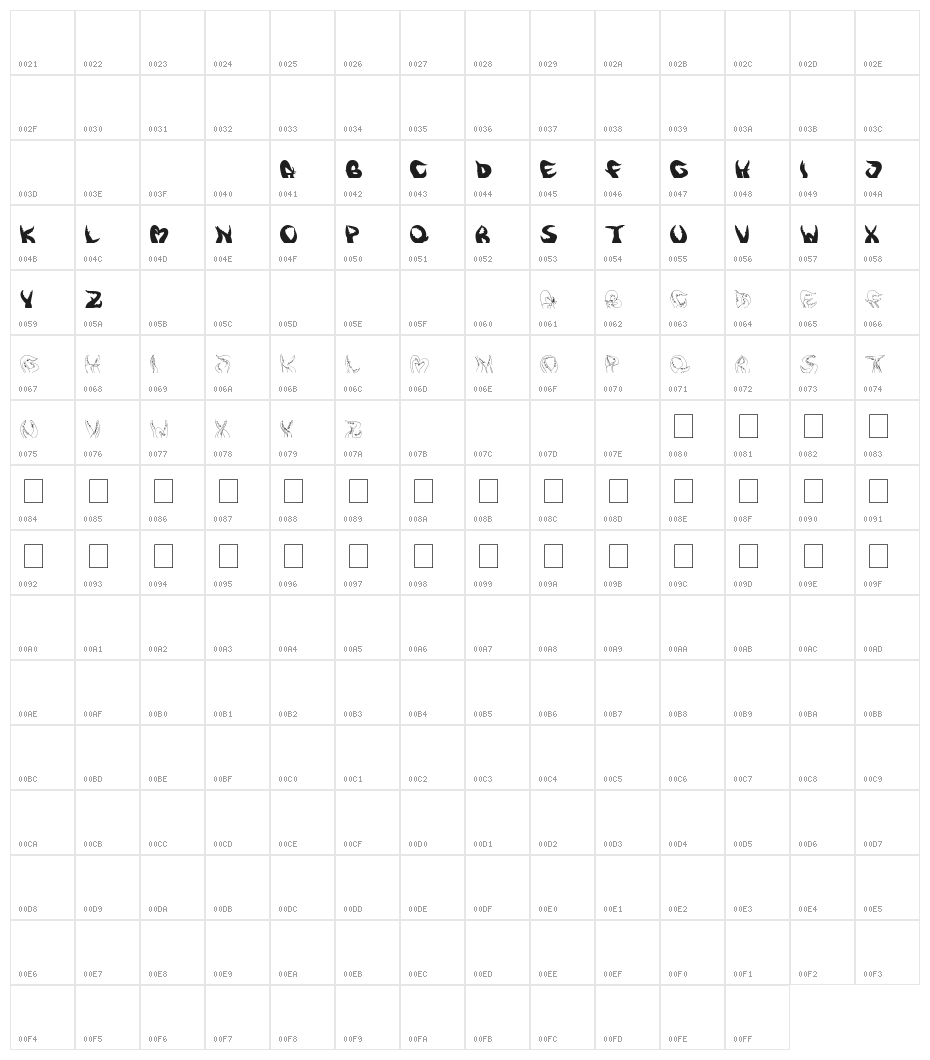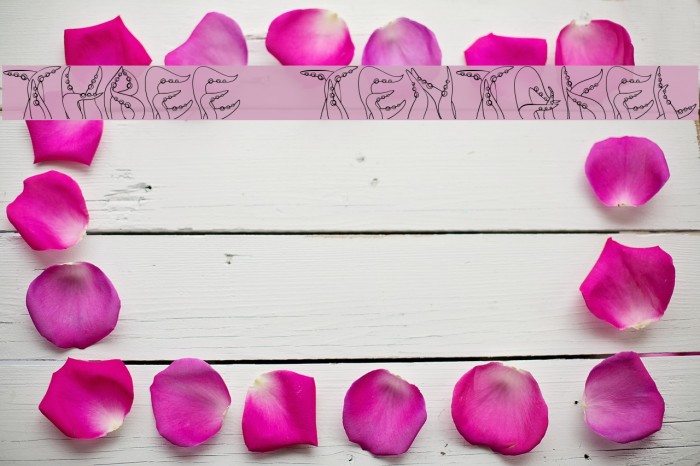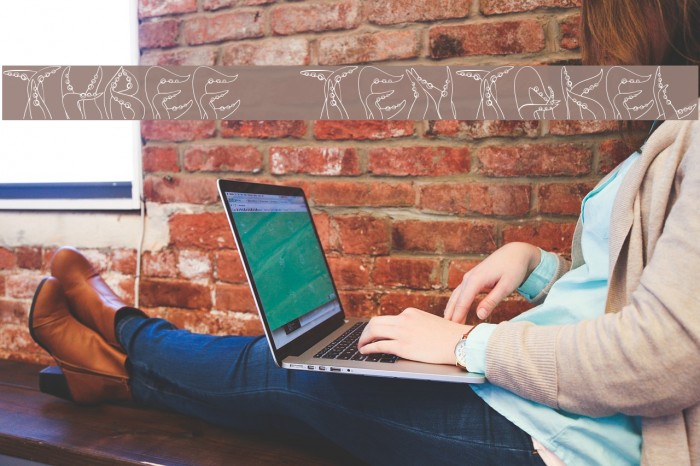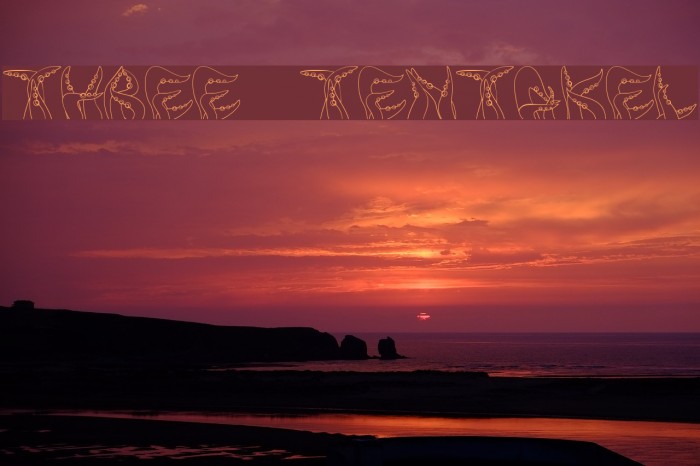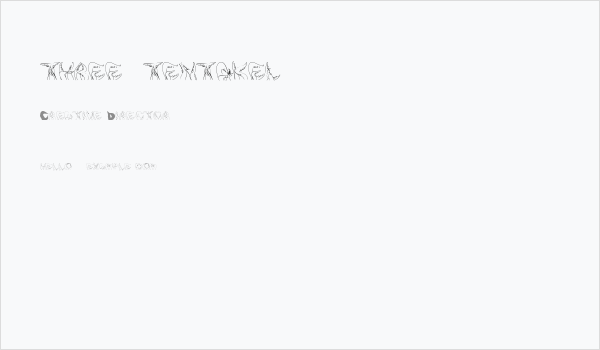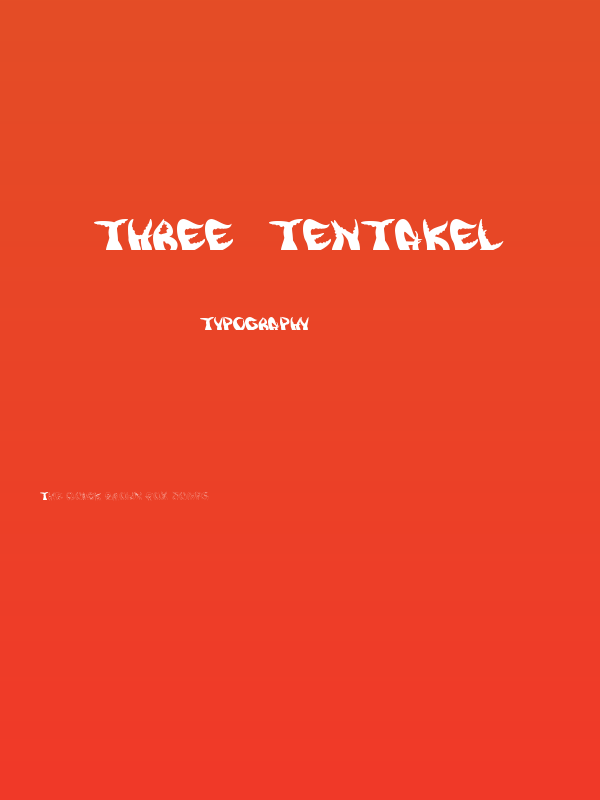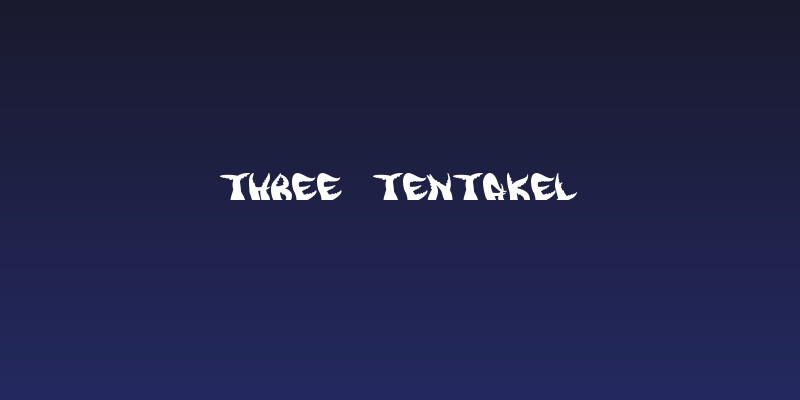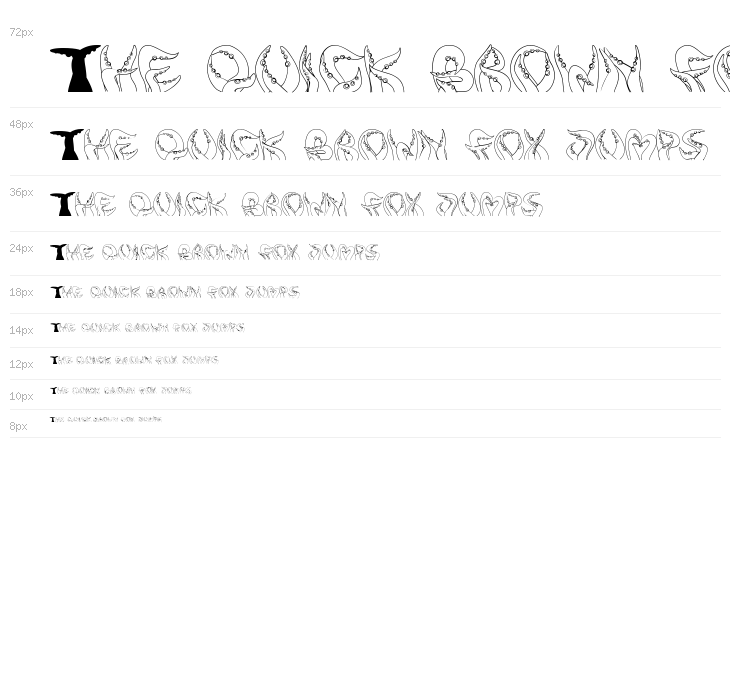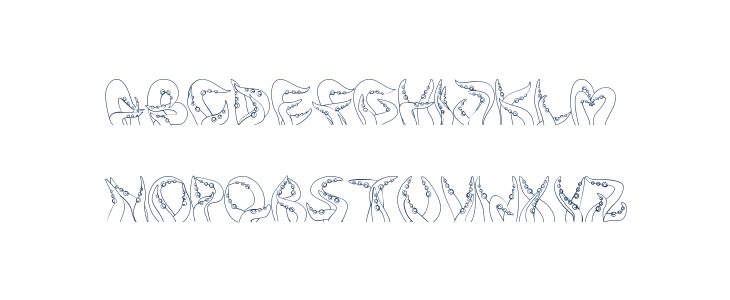
three_tentakel Font
three_tentakel Description
This font features a unique and playful design inspired by tentacles, giving each character a dynamic and organic feel. The uppercase letters are bold and striking, with a sense of movement and fluidity that mimics the natural curves of tentacles. The lowercase letters continue this theme with intricate details that resemble suction cups, adding texture and depth. The numbers and special characters maintain the same whimsical style, making the font cohesive and visually interesting. This font is perfect for projects that require a touch of creativity and a marine or fantasy theme.
| Proposed Projects | Ideal for fantasy-themed posters, children's book covers, aquatic event flyers, and creative branding. |